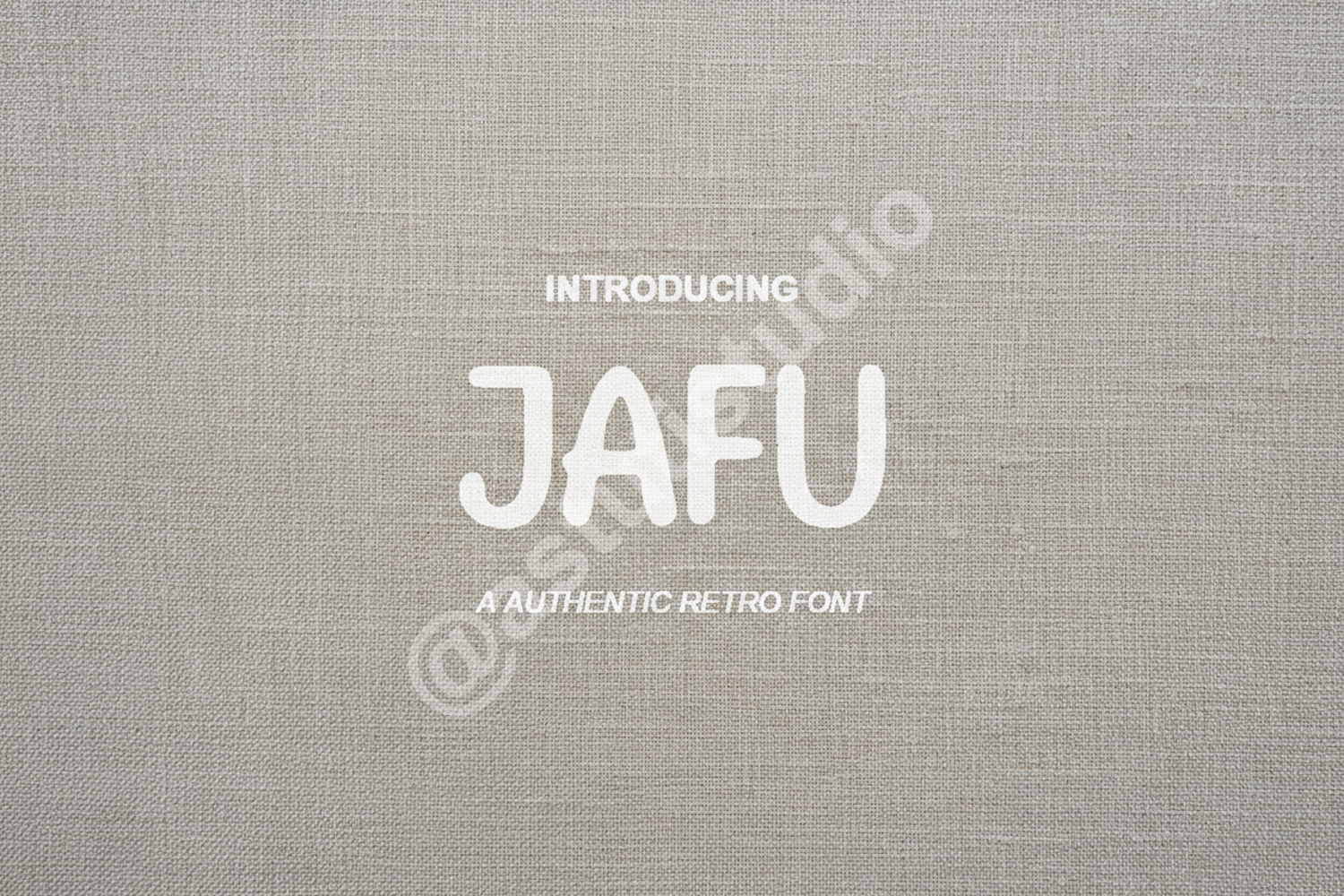
Jafu - Sophisticated Modern Sans Serif
Jafu
Elevate your creative projects with Jafu, a premium sans-serif font that embodies sophistication and modern minimalism. Crafted with precision, Jafu offers a clean aesthetic that ensures your designs remain timeless and professional. Whether you are building a brand from scratch or looking for the perfect display face, Jafu provides the versatility and clarity needed for high-end results.
- Luxury Branding and Identity
- Minimalist Logo Design
- Editorial Layouts and Magazine Headers
- High-End Packaging and Labels
- Modern Social Media Graphics
- Professional Presentation Slides